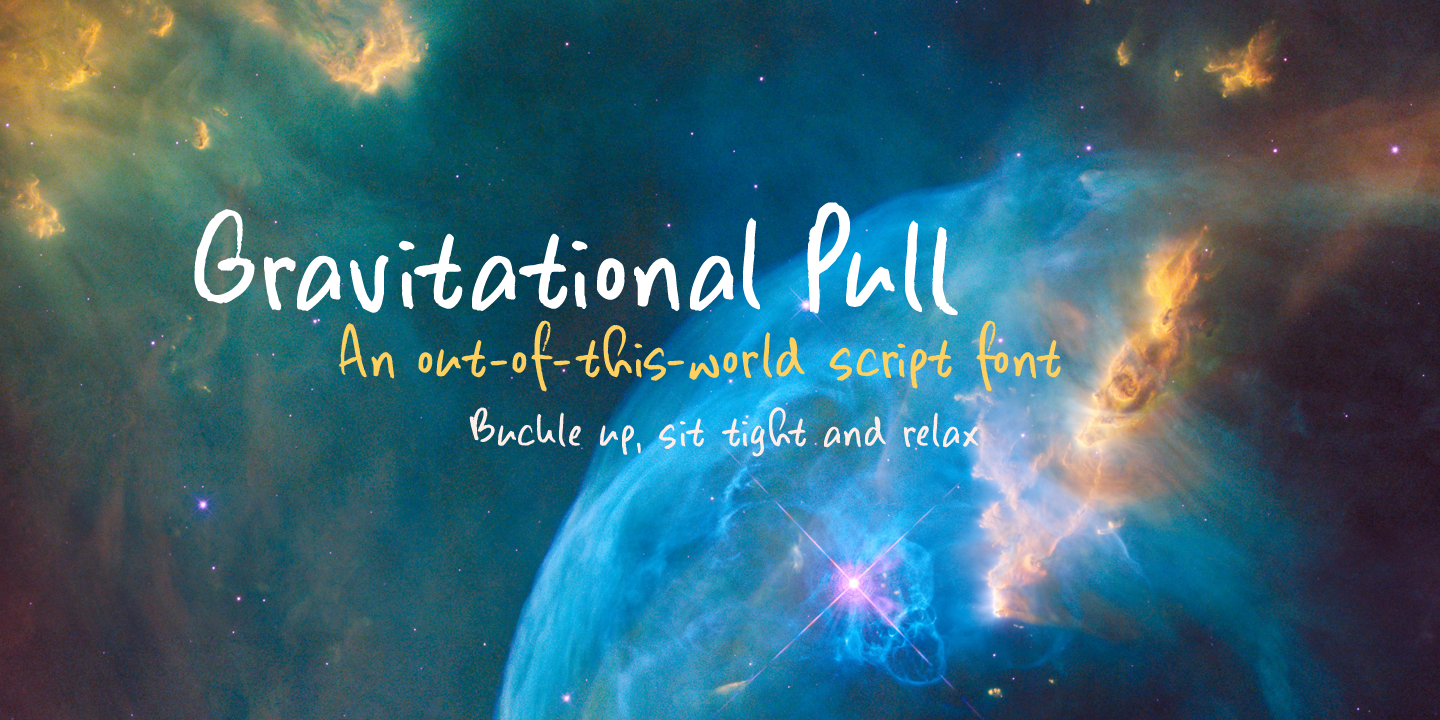
Gravitational Pull Font is ideal for scientific research branding, space exploration campaigns, physics education materials, astronomy observatory identities, cosmic-themed marketing, scientific conference promotions, planetary science communications, gravitational wave research materials, astrophysics publications, and universe-inspired creative projects. This cosmic typeface excels in environments where scientific precision and universal wonder are essential for communicating complex scientific concepts with compelling visual impact.
What makes Gravitational Pull Font exciting is its masterful capture of cosmic forces and universal attraction through letterforms that seem to bend and curve with the invisible power of gravitational fields. The font features dynamic, physics-inspired characteristics with subtle orbital influences that convey scientific accuracy, cosmic wonder, and the fundamental forces that govern our universe. This scientific aesthetic makes it perfect for brands seeking to communicate scientific expertise, cosmic understanding, and the awe-inspiring power of universal physical laws.
Gravitational Pull Font family includes Light, Regular, Medium, Bold, Orbital, Cosmic, Scientific, and Universal variants. Each style maintains the font's distinctive gravitational character while offering different levels of scientific intensity and cosmic expression, enabling designers to create authentic physics-inspired compositions that celebrate scientific discovery and universal understanding across various educational applications.
Scientific design professionals appreciate the font's ability to instantly communicate precision, cosmic understanding, and gravitational authenticity. The letterforms' physics-inspired characteristics and orbital details create scientific connections that standard fonts cannot achieve, making it essential for projects requiring distinctive cosmic personality and scientific appeal.
When working with Gravitational Pull Font, designers can create compelling visual narratives that resonate with scientific communities and space exploration enthusiasts. The font's cosmic character makes it especially effective for brands in astronomy, physics education, space research, and scientific communication where authentic gravitational credibility and cosmic sophistication are crucial for scientific positioning.
For digital applications, Gravitational Pull Font maintains its distinctive gravitational qualities across different platforms while ensuring excellent readability in modern scientific contexts. Its optimized spacing preserves the orbital character essential for authentic cosmic appeal.
Scientific marketing agencies consistently select Gravitational Pull Font for projects requiring genuine cosmic appeal and gravitational authenticity, where conventional typography cannot capture the desired scientific precision and universal wonder that defines contemporary space exploration culture and physics education movements.